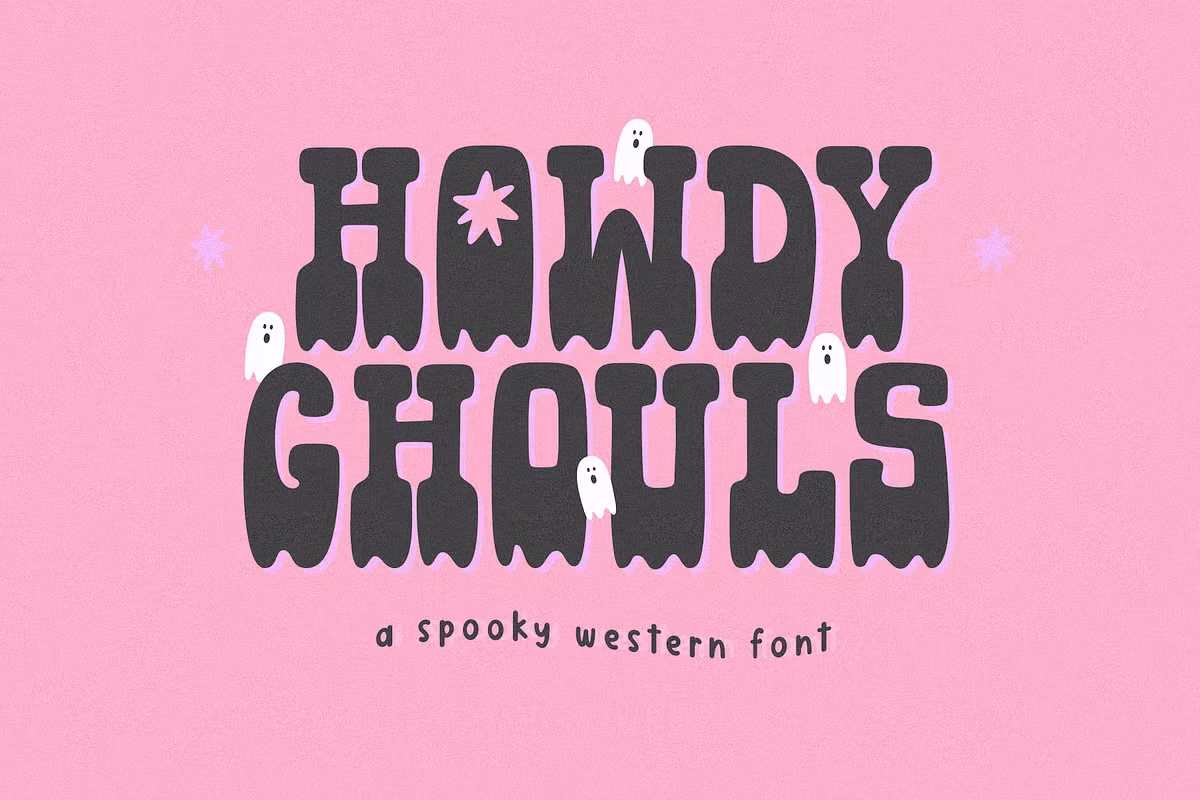
Howdy Ghouls | Halloween Font Free Download is a spooky and fun typeface designed to capture the spirit of Halloween with a playful, ghostly twist. Featuring uneven, quirky letterforms and a slightly eerie vibe, this font is perfect for creating Halloween-themed posters, invitations, social media posts, and more.
Its fun and lighthearted design adds a whimsical touch to your spooky creations, making it ideal for both spooky events and playful Halloween branding. Whether you’re designing for a haunted house, Halloween party, or festive merchandise, Howdy Ghouls brings personality and charm to your typography.